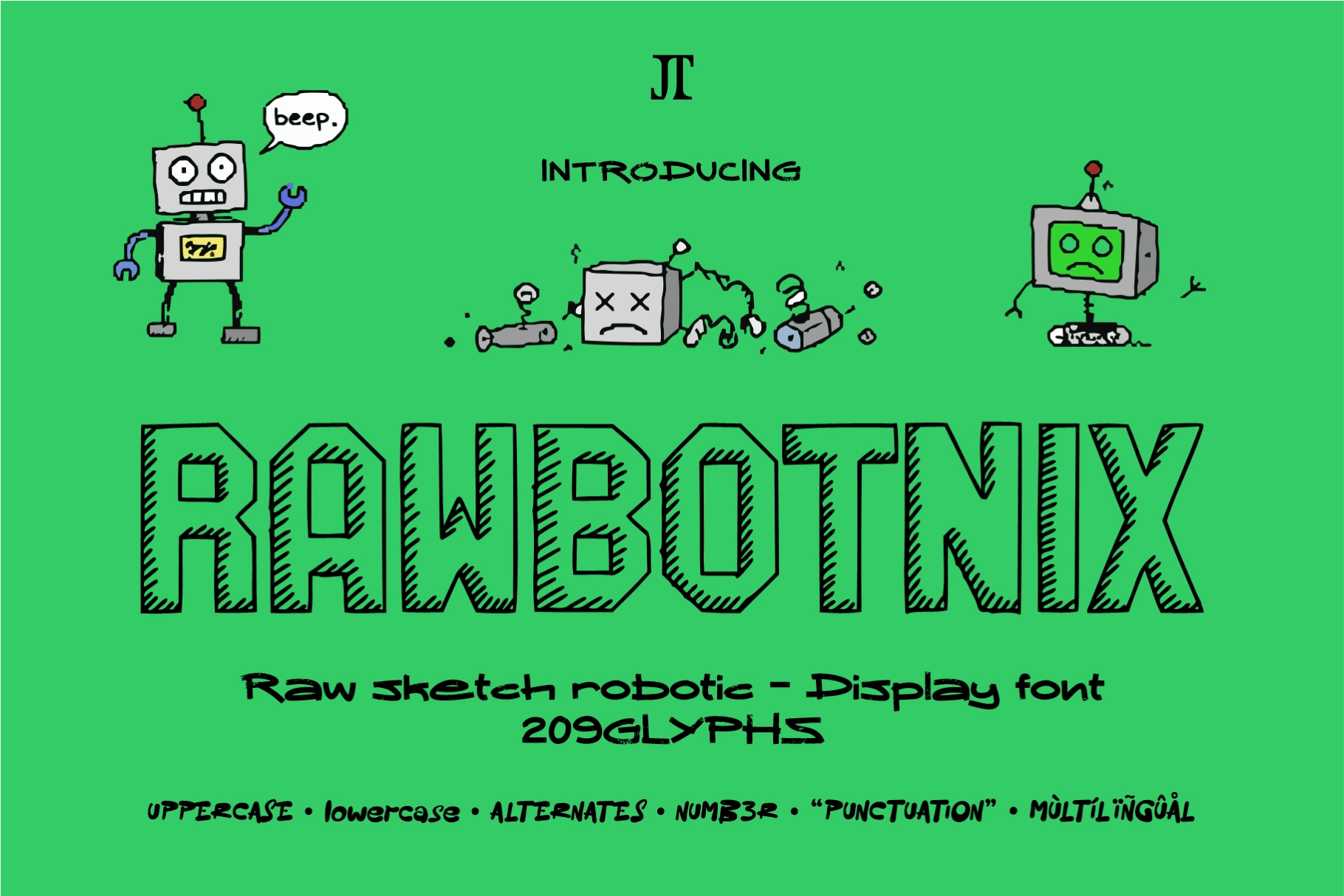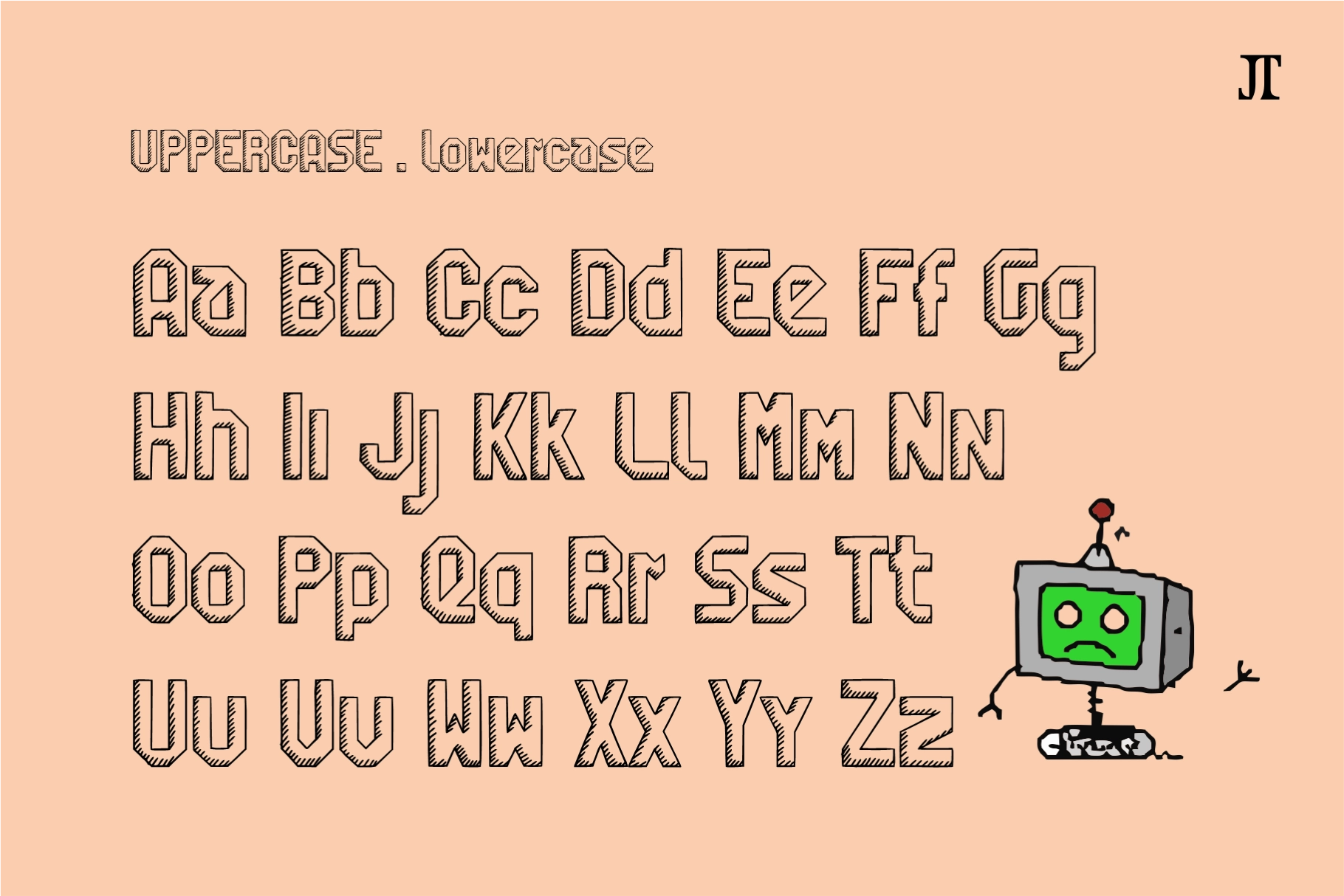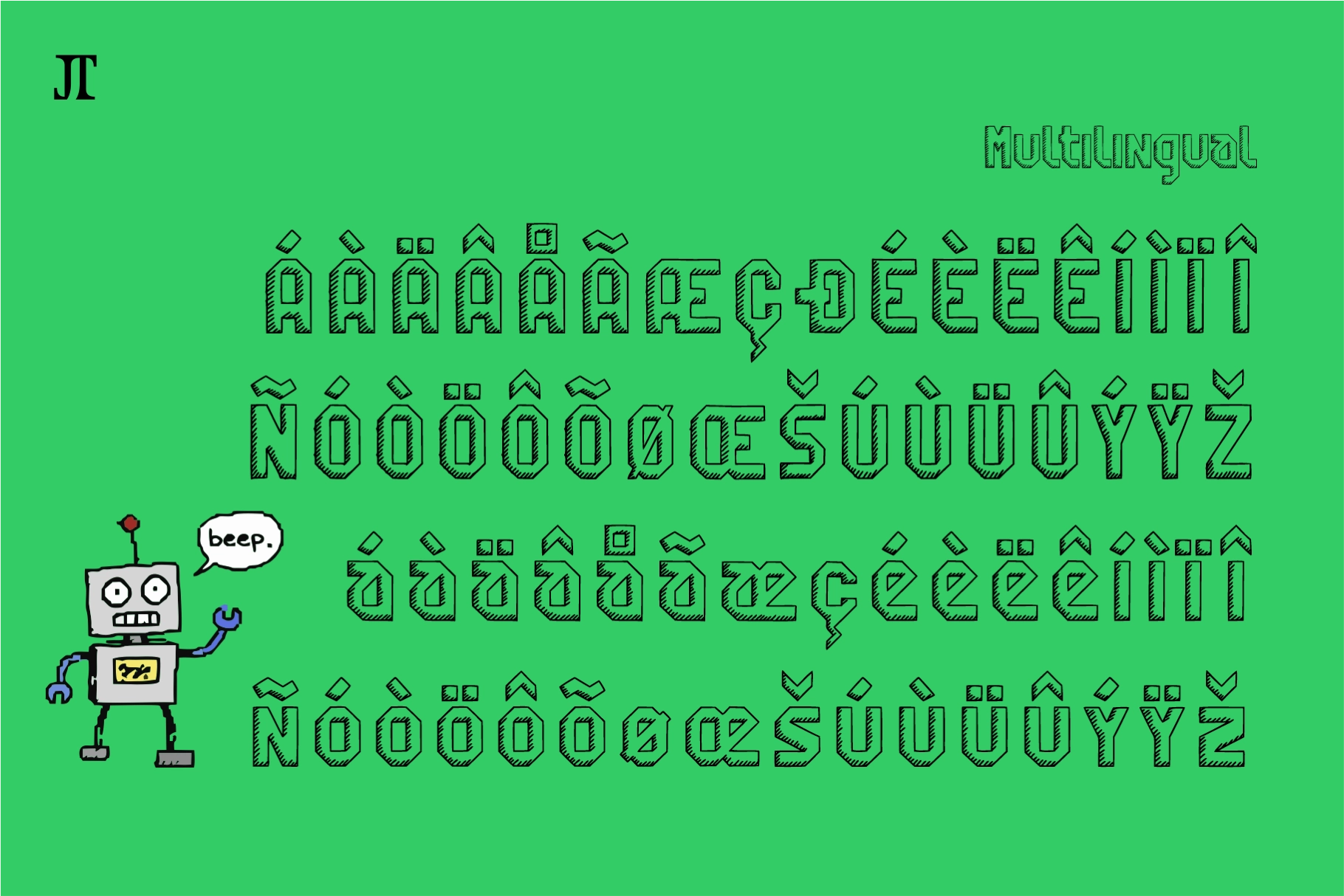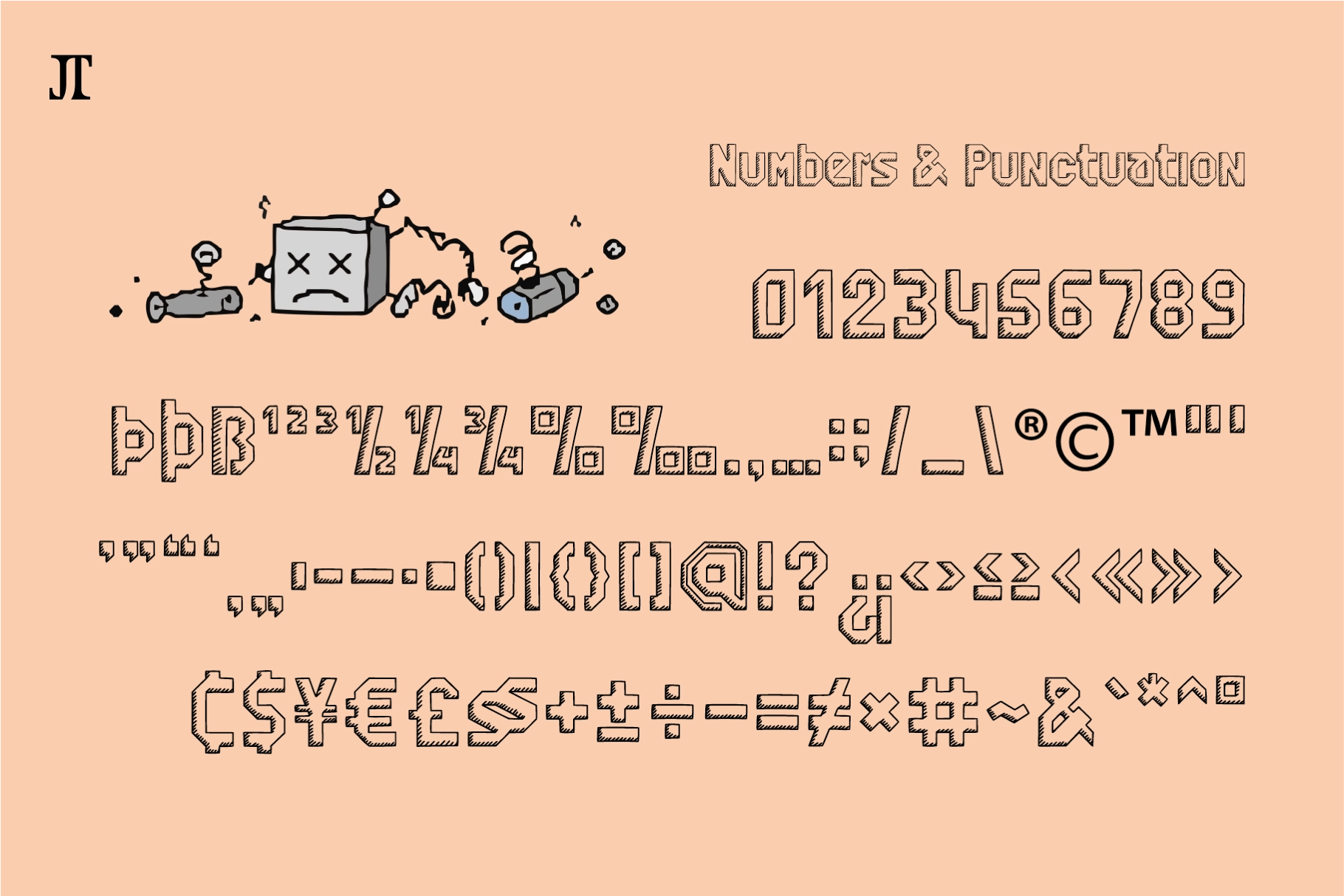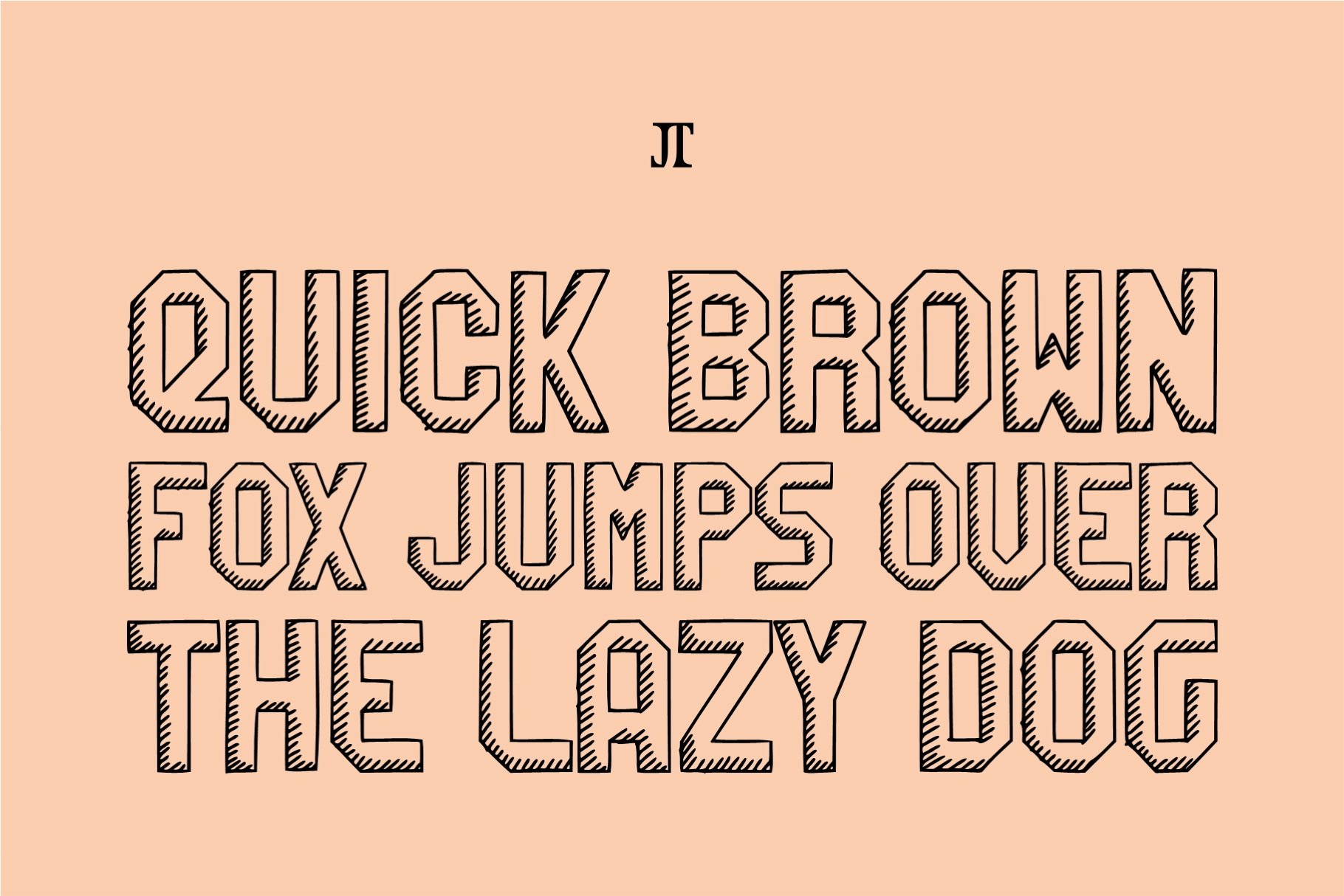
Rawbotnix - Raw Sketch Robotic Font
This playful display font has a scribbled robotic look with chunky outlines, uneven strokes, angled cuts, and sketch-style hatching inside each letter. Its rough construction gives headlines a funny, broken-machine personality — like a classroom doodle discovered electricity and became everyone’s problem.
Rawbotnix works well for kids’ branding, robot-themed posters, comic covers, cartoon titles, album artwork, street graphics, social media posts, game visuals, stickers, DIY zines, YouTube thumbnails, merchandise, and experimental typography. The font is made for loud display use, especially where humor, imperfection, and hand-drawn energy are the point.
• Uppercase & lowercase
• Numbers & punctuation
• 209 glyphs